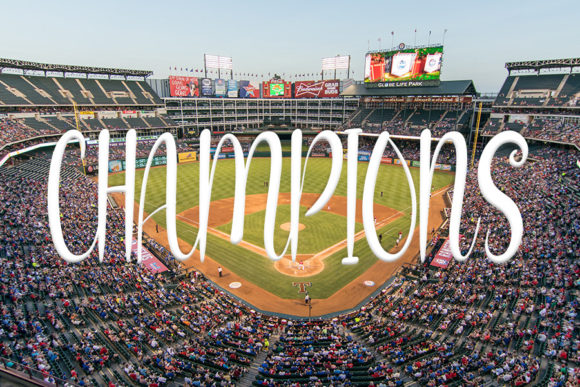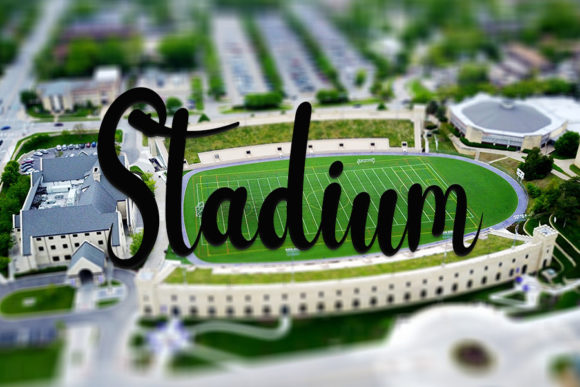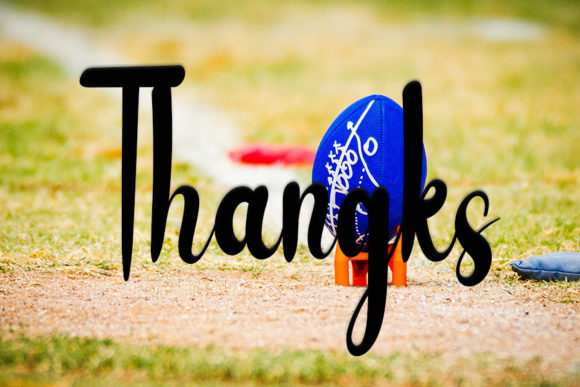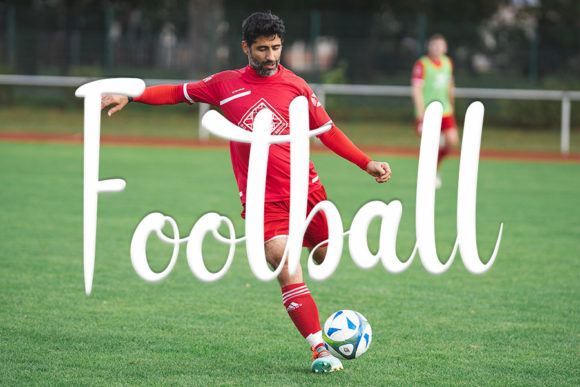
Jersey Font
About Jersey Font
Jersey is a sweet and delicate handwritten font. Dainty and joyful, this font will be ideal for writing wedding invitations, cards or any other design that may need a romantic, personalized touch!